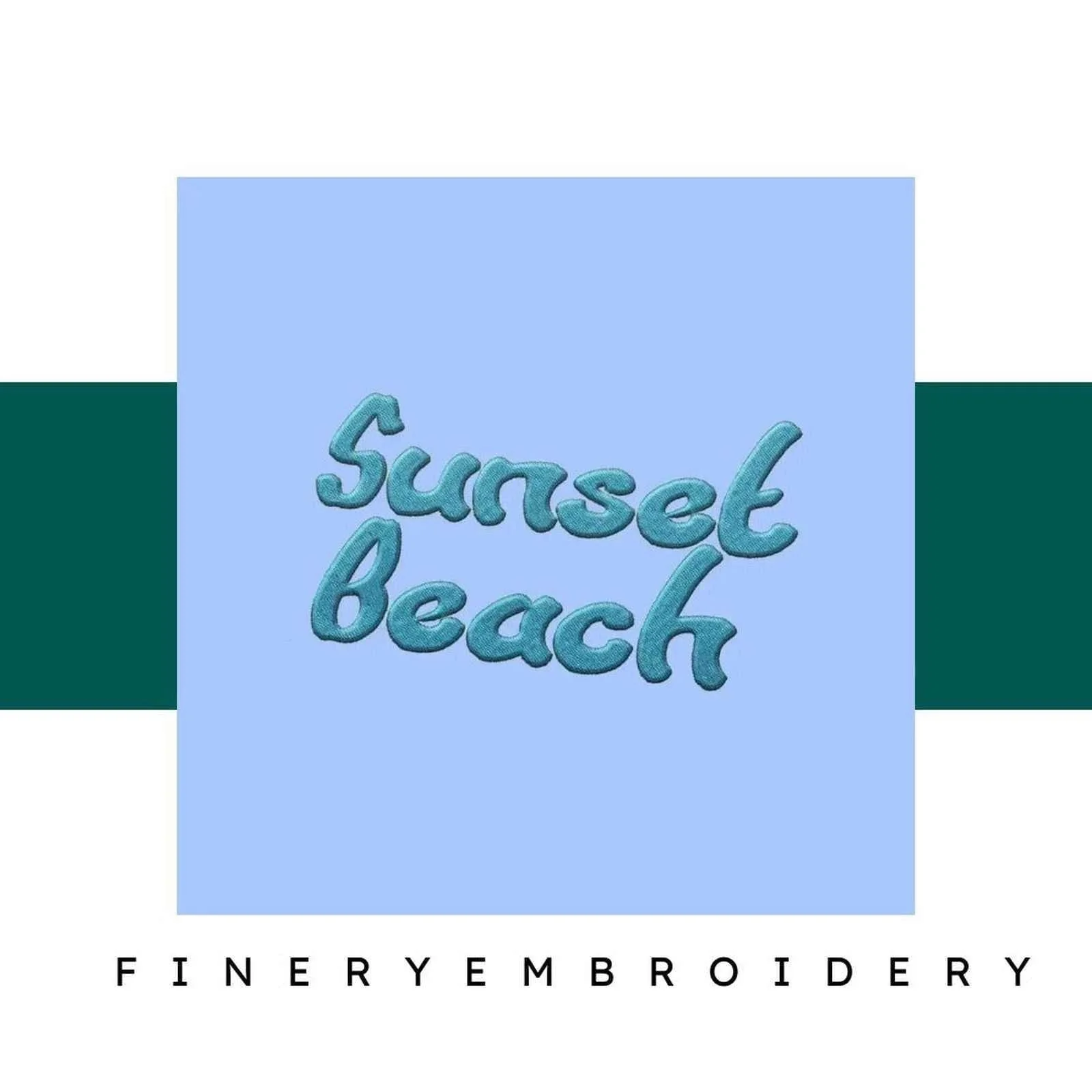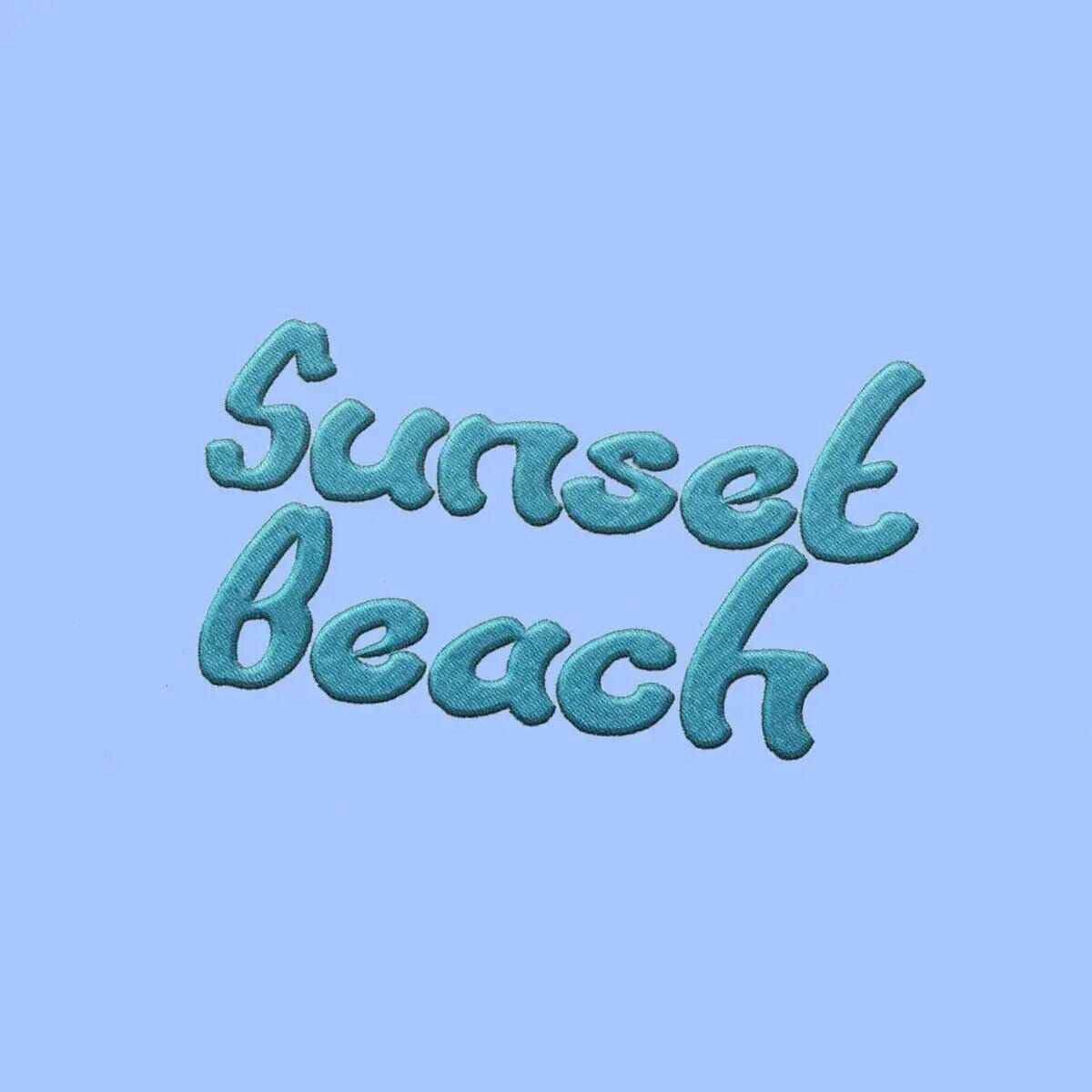
Sunset Beach Embroidery alphabet Font Set
Transform your embroidery projects into art with the elegant Sunset Beach Embroidery Alphabet Font Set—where sophistication meets creativity!
Welcome to the world of creativity with our Sunset Beach Embroidery Alphabet Font Set. This exquisite collection isn't just a font set; it’s an essential tool for every embroidery enthusiast looking to elevate their projects. With high-quality designs that blend elegance and functionality, this font set is perfect for personalizing your creations, whether it's a heartfelt gift or a stunning home decor piece.
Why You'll Love This Design
Each font in the Sunset Beach collection embodies a unique charm that captures the essence of coastal beauty. The elegant curves and fluid designs will inspire you to create standout pieces that speak to your creative heart. Perfect for everything from monograms to decorative text, this collection is designed to impress and elevate your embroidering game.
Creative Applications
Imagine your embroidery projects featuring stunning lettering that brings your ideas to life! This font set is versatile enough for a variety of applications—think custom clothing, personalized bags, or eye-catching wall art. Whether you’re crafting for yourself or designing a thoughtful gift, the Sunset Beach font set will add a splash of sophistication to every project.